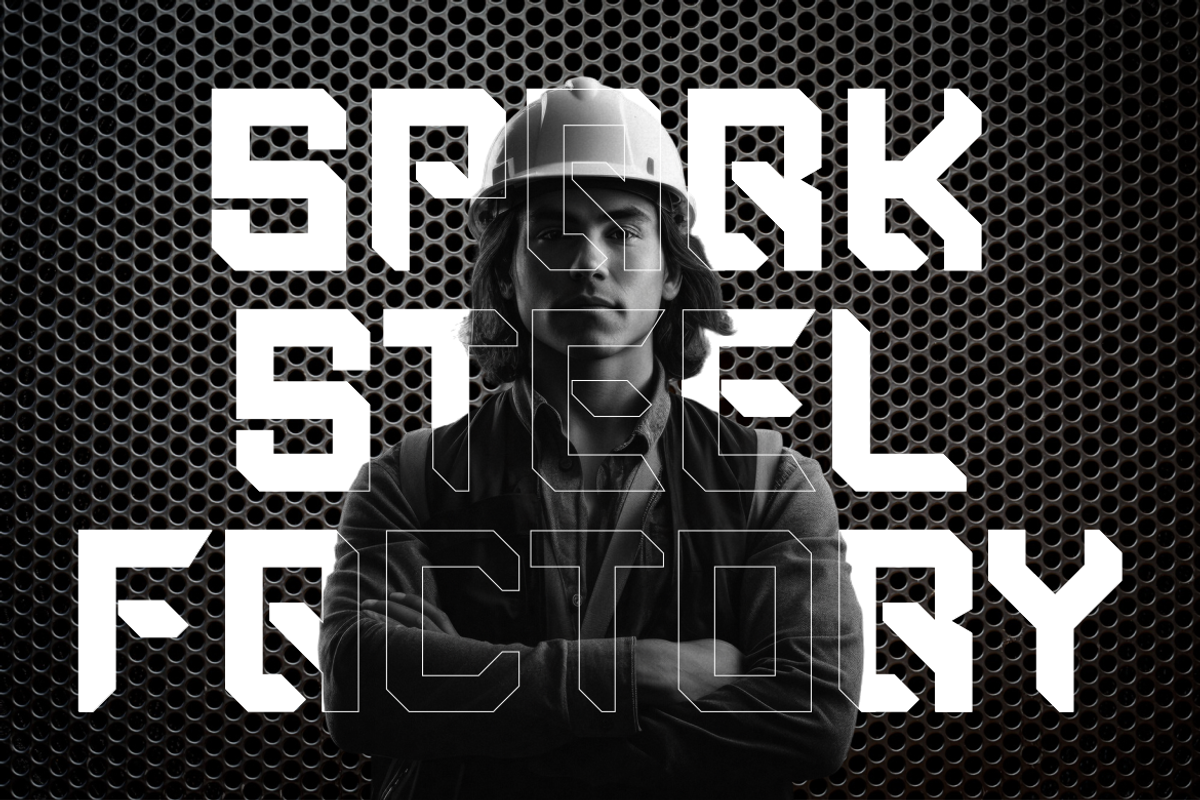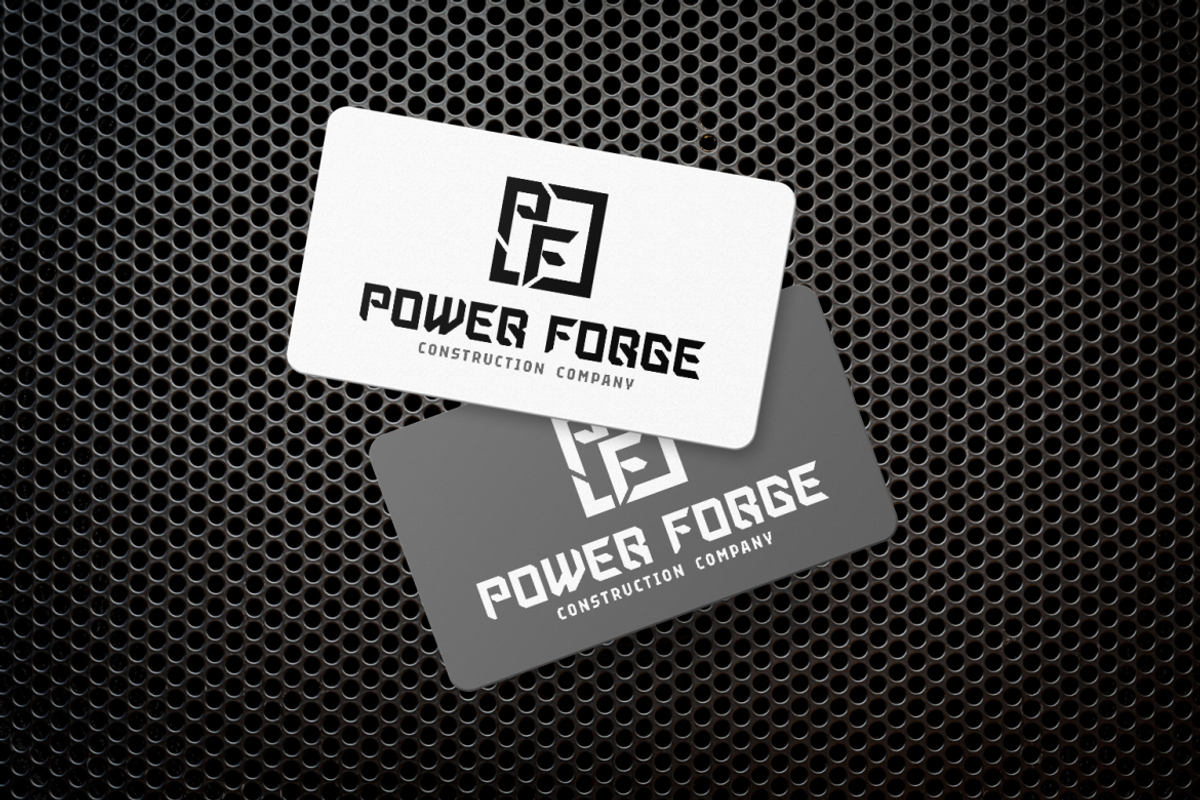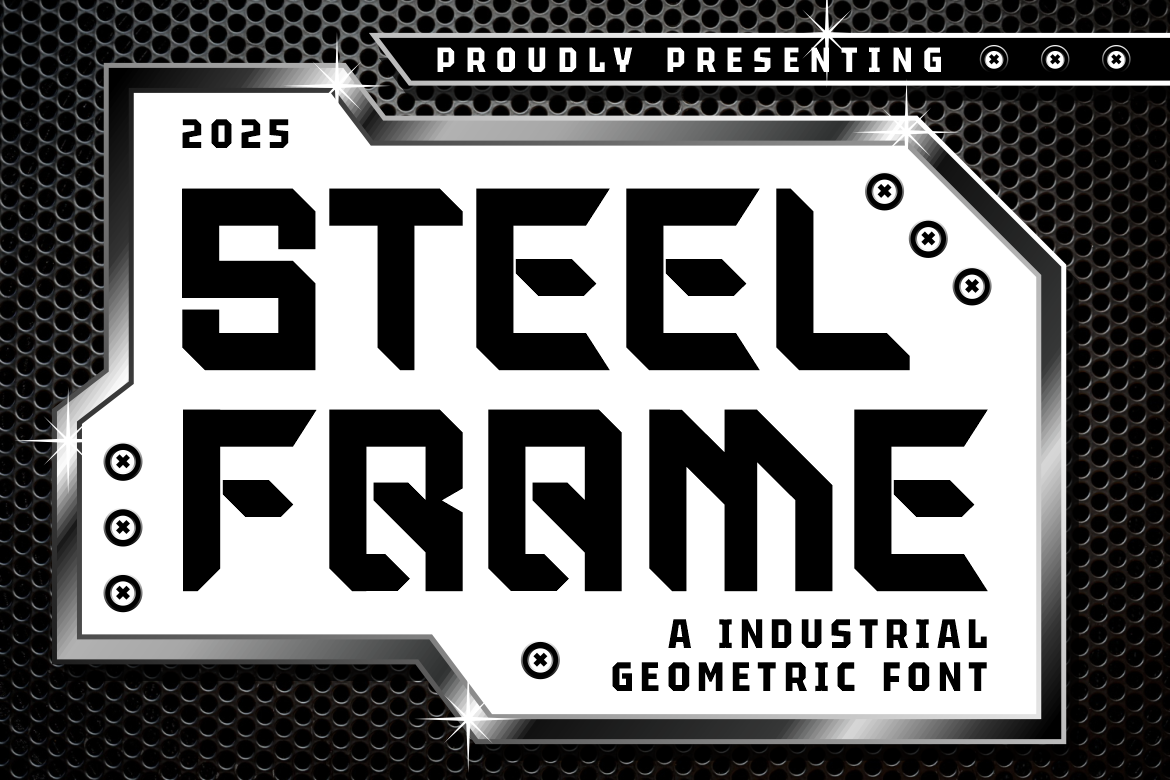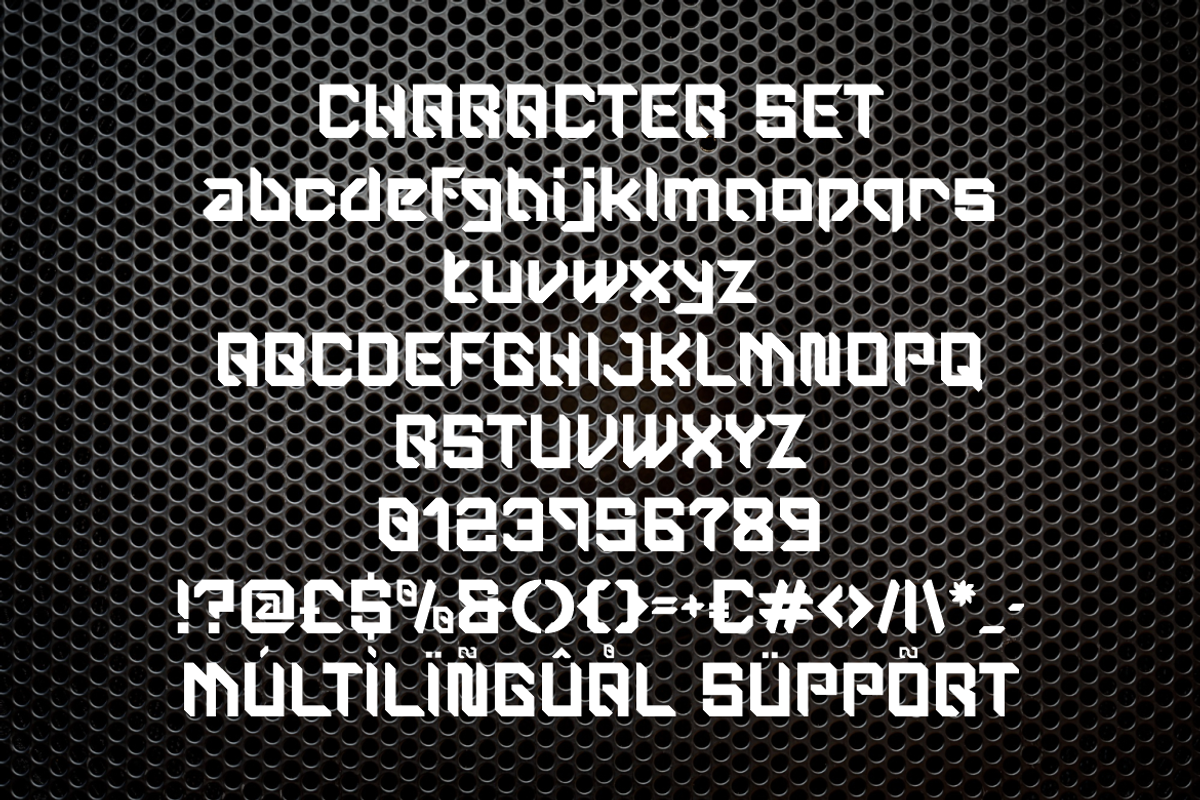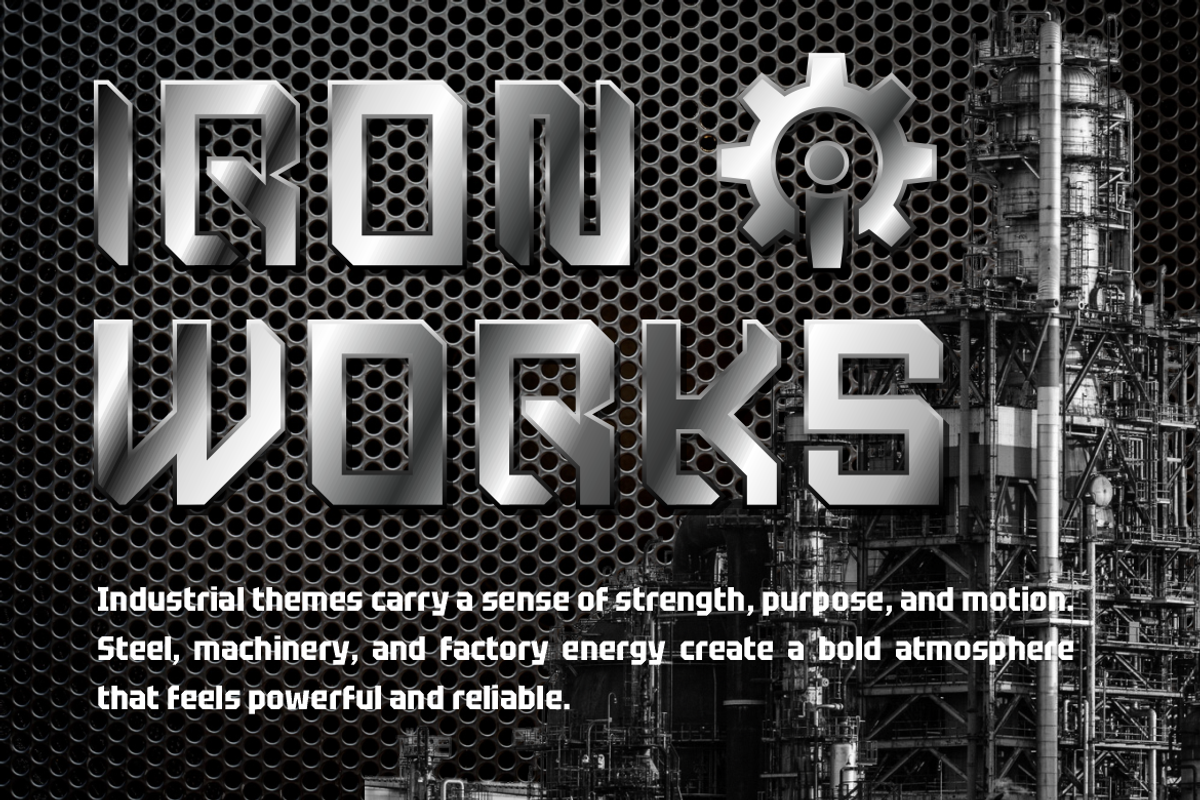
Steel Frame Modern Industrial Font
Steel Frame Modern Industrial Geometric Font is a bold display typeface designed to project strength, structure, and precision. Each character is built with thick strokes, sharp angles, and firm edges that create a solid visual foundation. The proportions are wide and confident, with consistent stroke weight that reinforces a sense of stability. The geometric construction feels engineered rather than decorative, giving the font a mechanical and architectural character. Corners appear decisive, while inner spaces remain clean and controlled, supporting excellent legibility at large sizes. The overall form avoids softness and curves, focusing instead on rigidity and balance. This design approach gives the font a commanding presence that communicates reliability and power. Steel Frame Modern Industrial Geometric Font works especially well when a design requires authority and a strong visual anchor. It fits modern industrial aesthetics while staying timeless and functional. Designers can rely on its clear structure to maintain readability across bold headlines and compact branding applications.
This font carries a modern industrial style that blends minimal geometry with a tough, utilitarian tone. The style feels professional, strong, and purposeful, making it suitable for industries related to construction, manufacturing, technology, and engineering. Steel Frame Modern Industrial Geometric Font performs well in logos, brand identities, posters, advertisements, and headlines that demand attention. It is also effective for packaging, magazine covers, book covers, film titles, stickers, and business materials that require a bold impression. The font supports impactful messaging and confident branding without visual noise. Its structured design helps text remain clear in demanding layouts and large-scale prints. Steel Frame Modern Industrial Geometric Font delivers a powerful typographic voice for projects that value strength, precision, and modern industrial character.